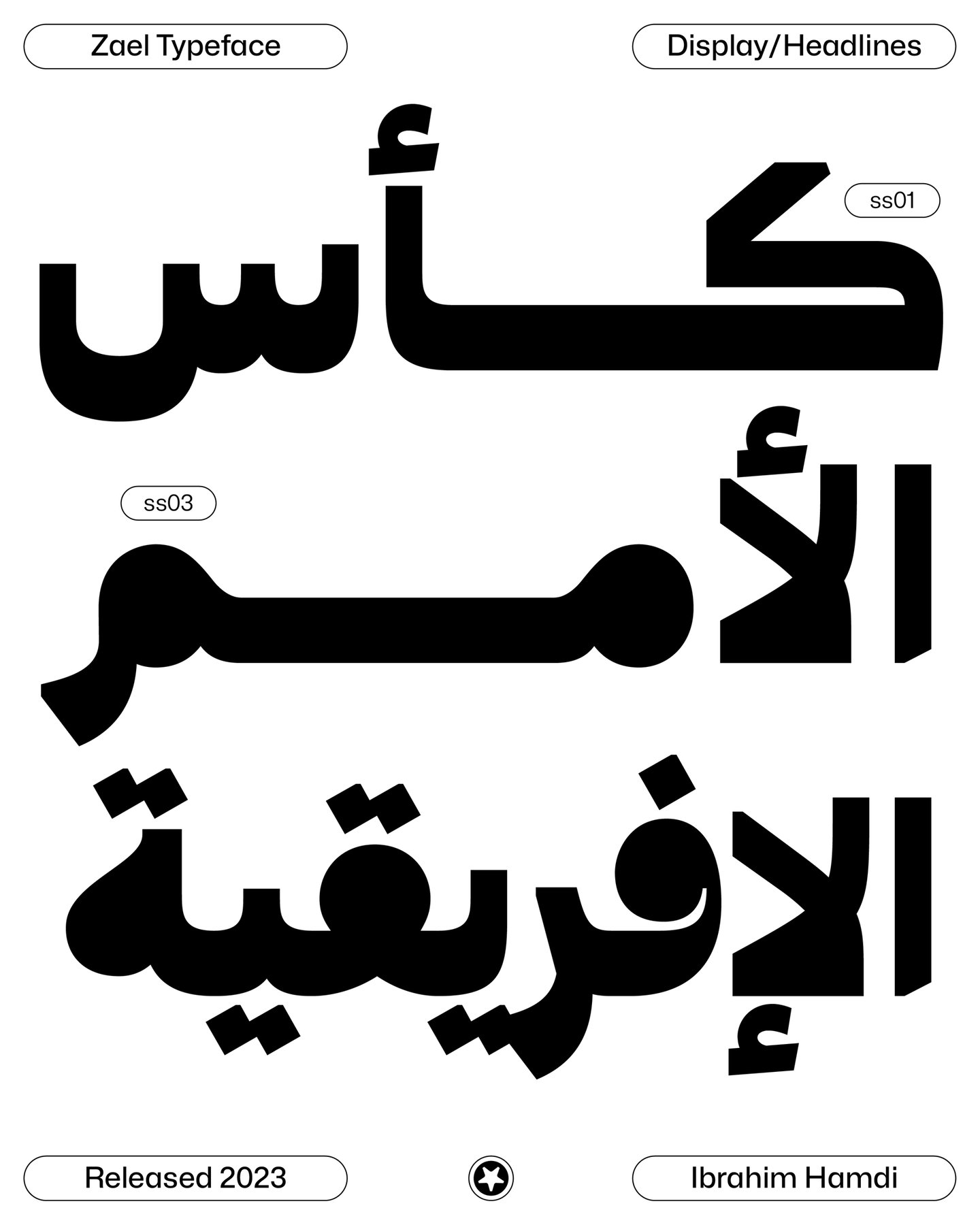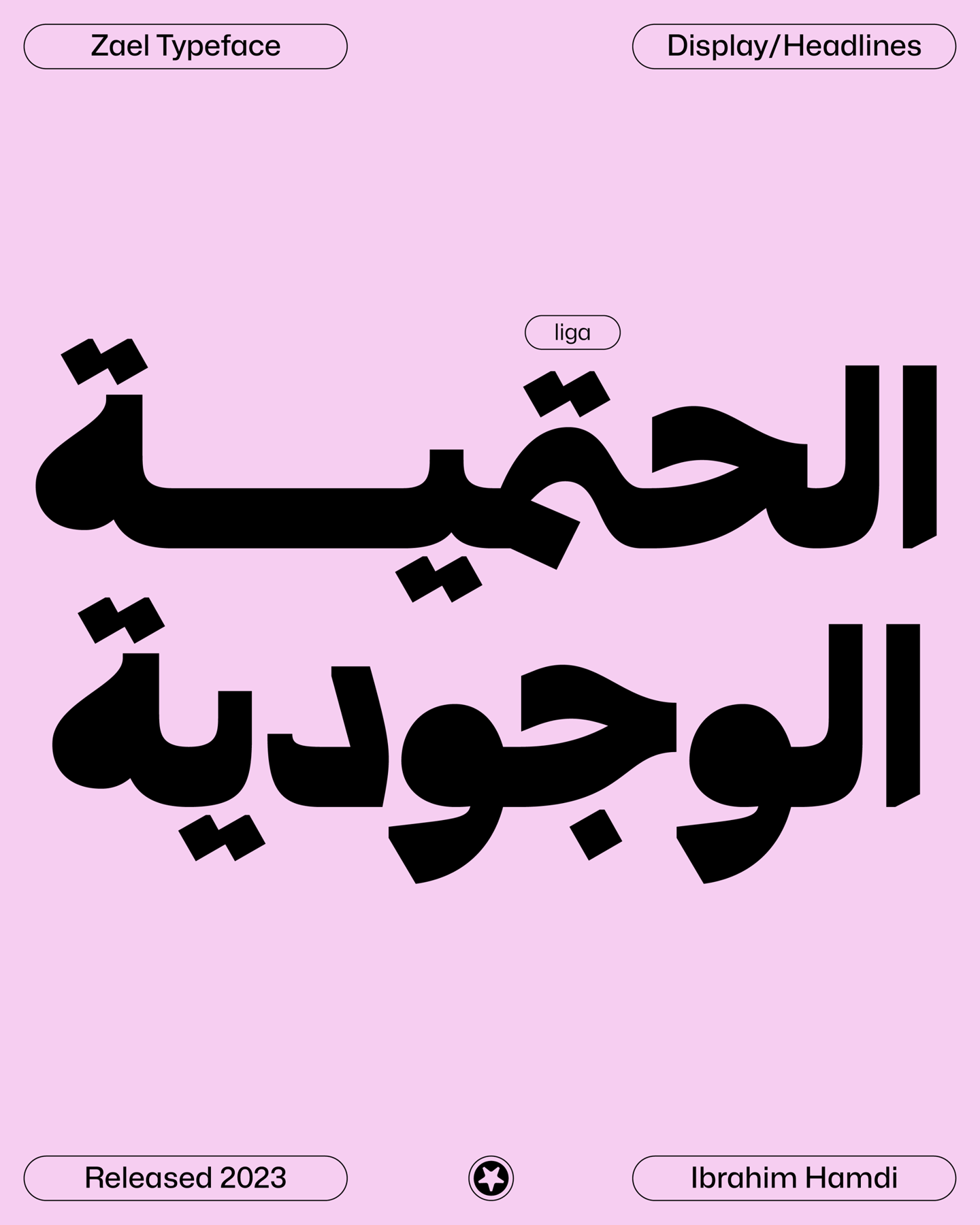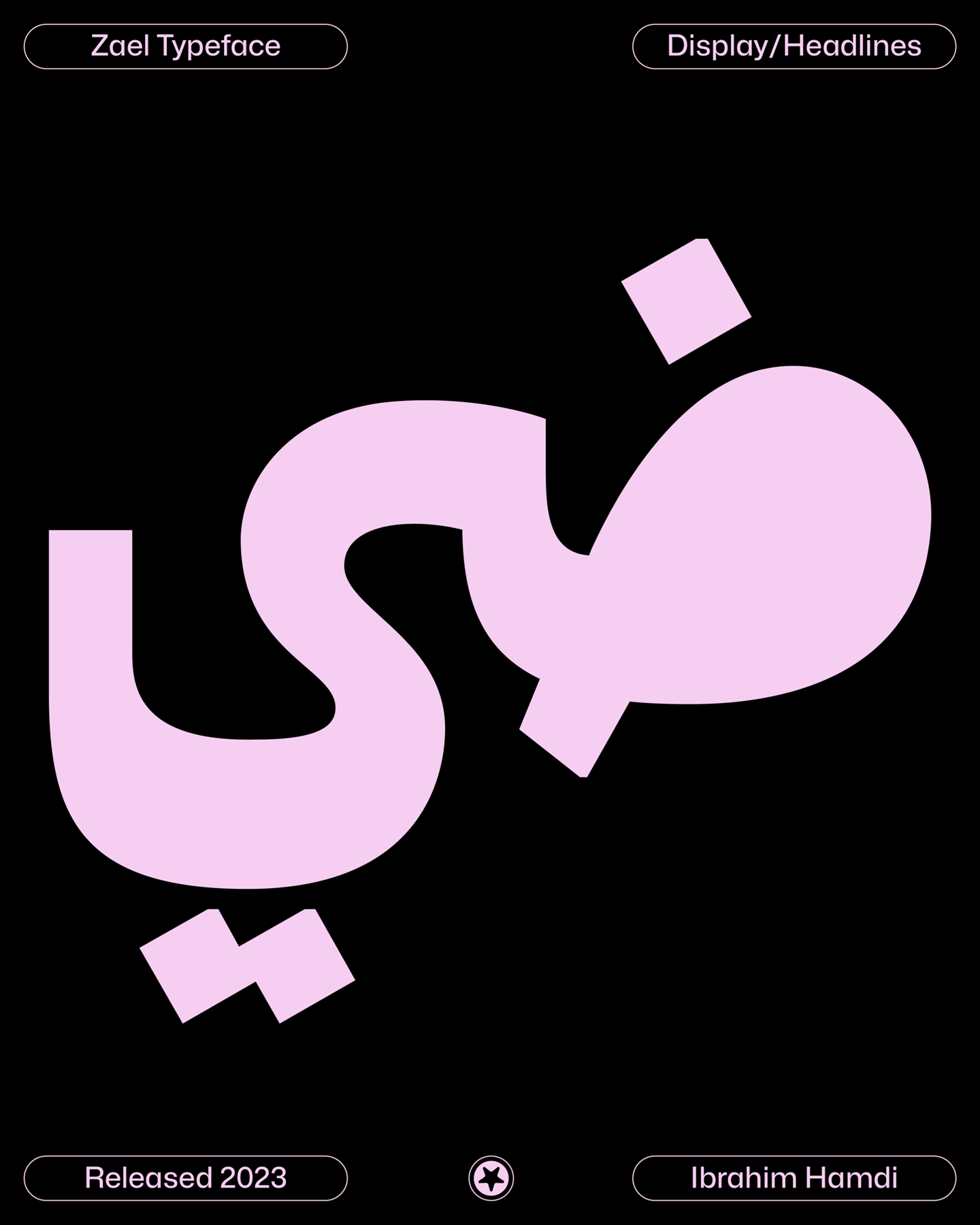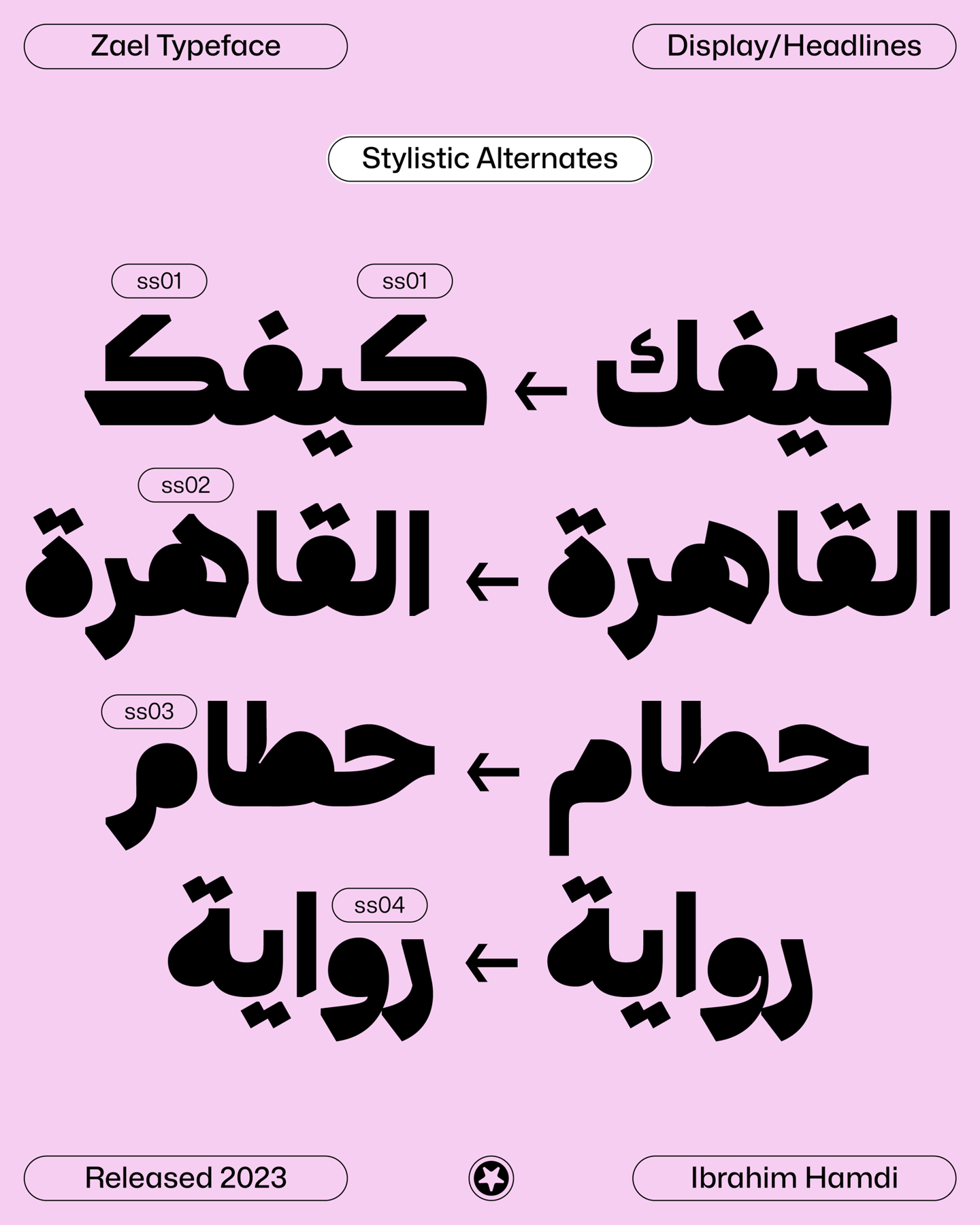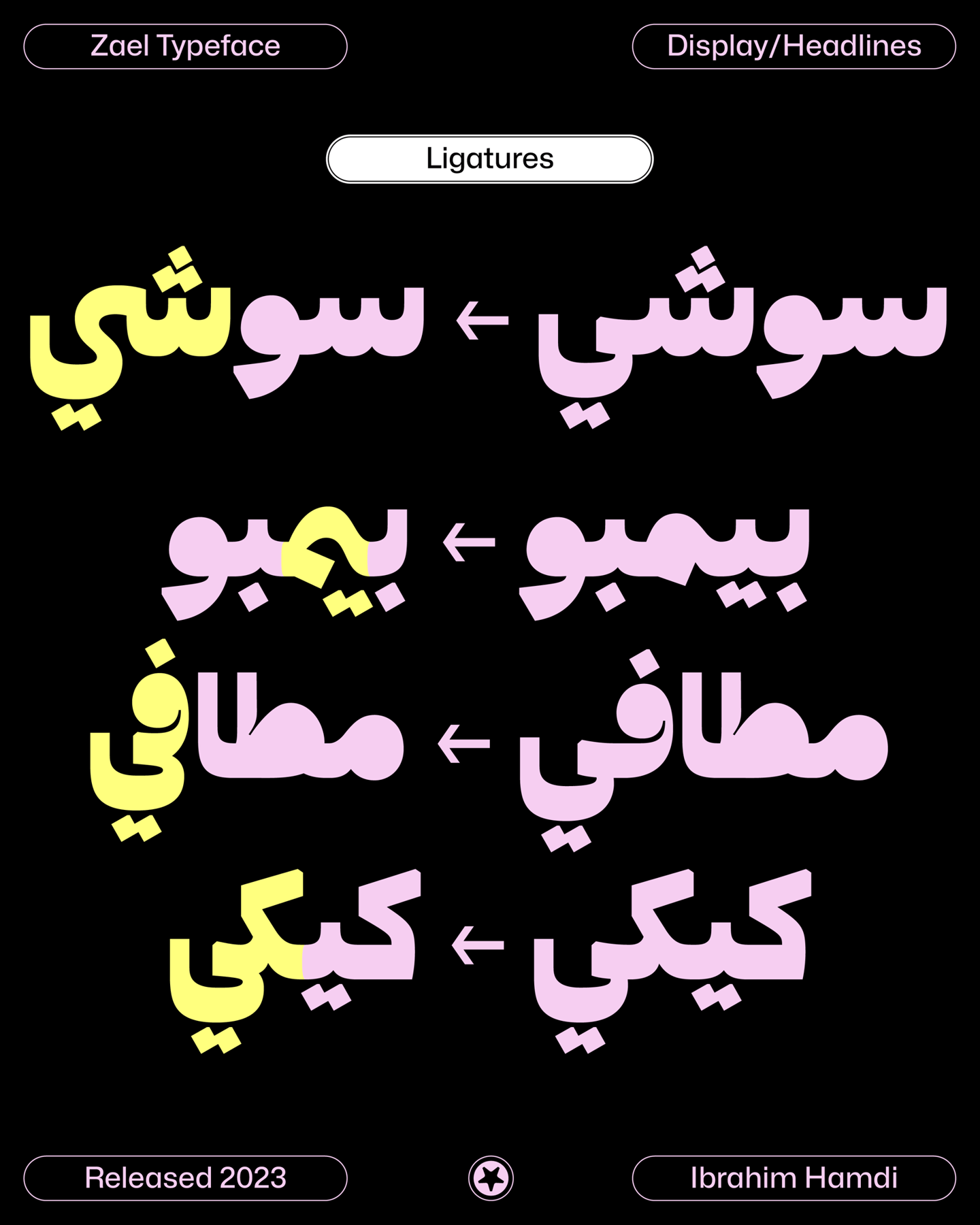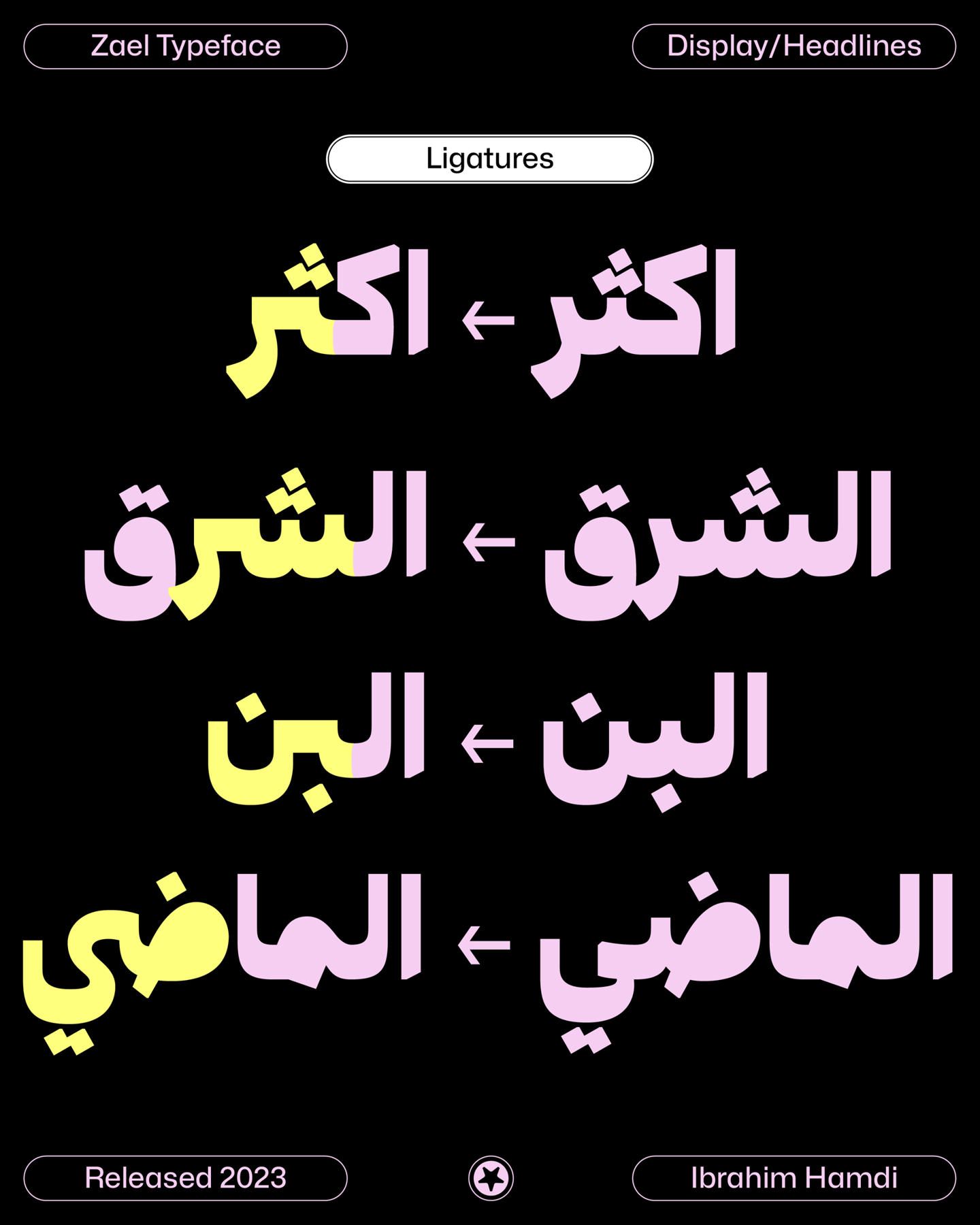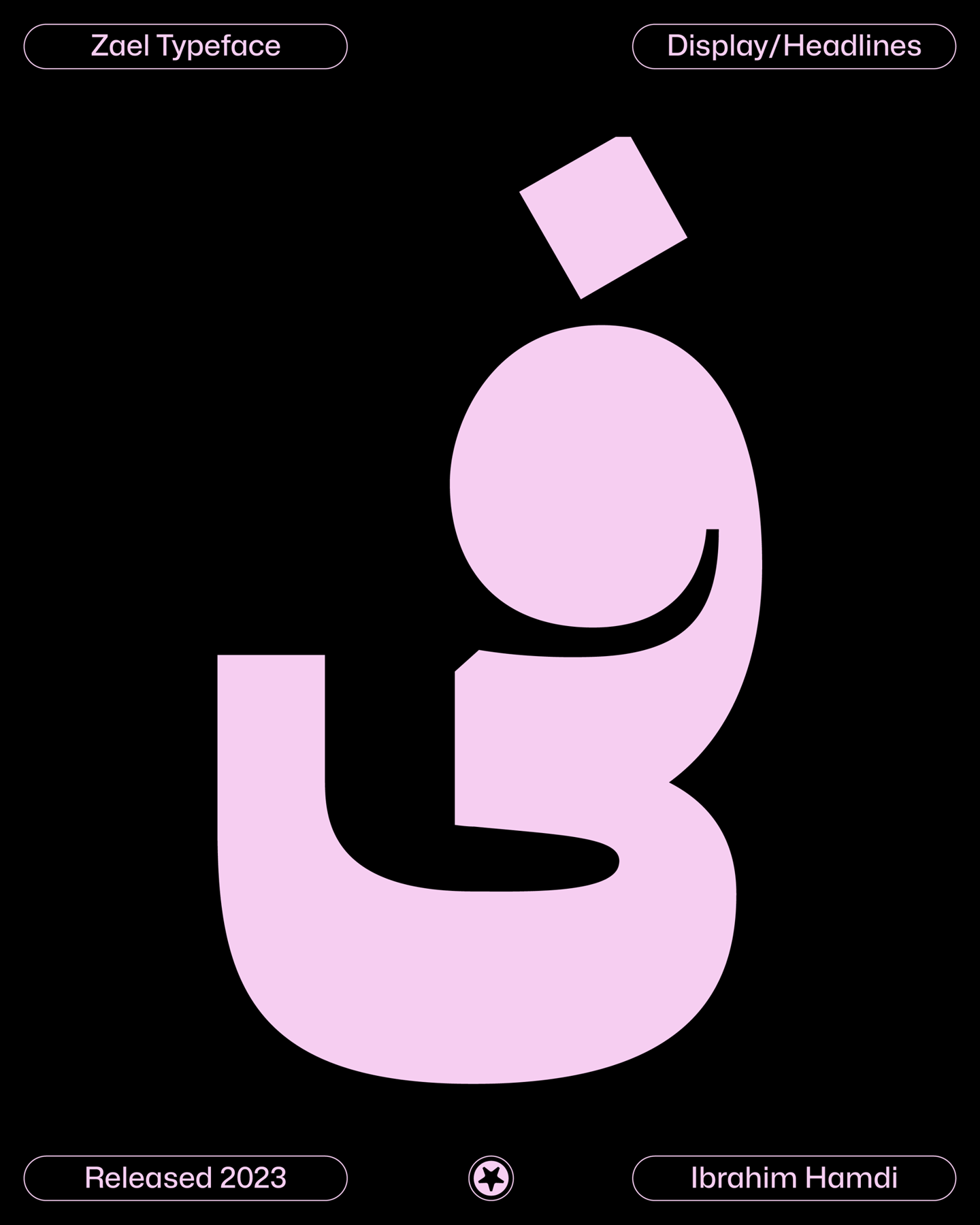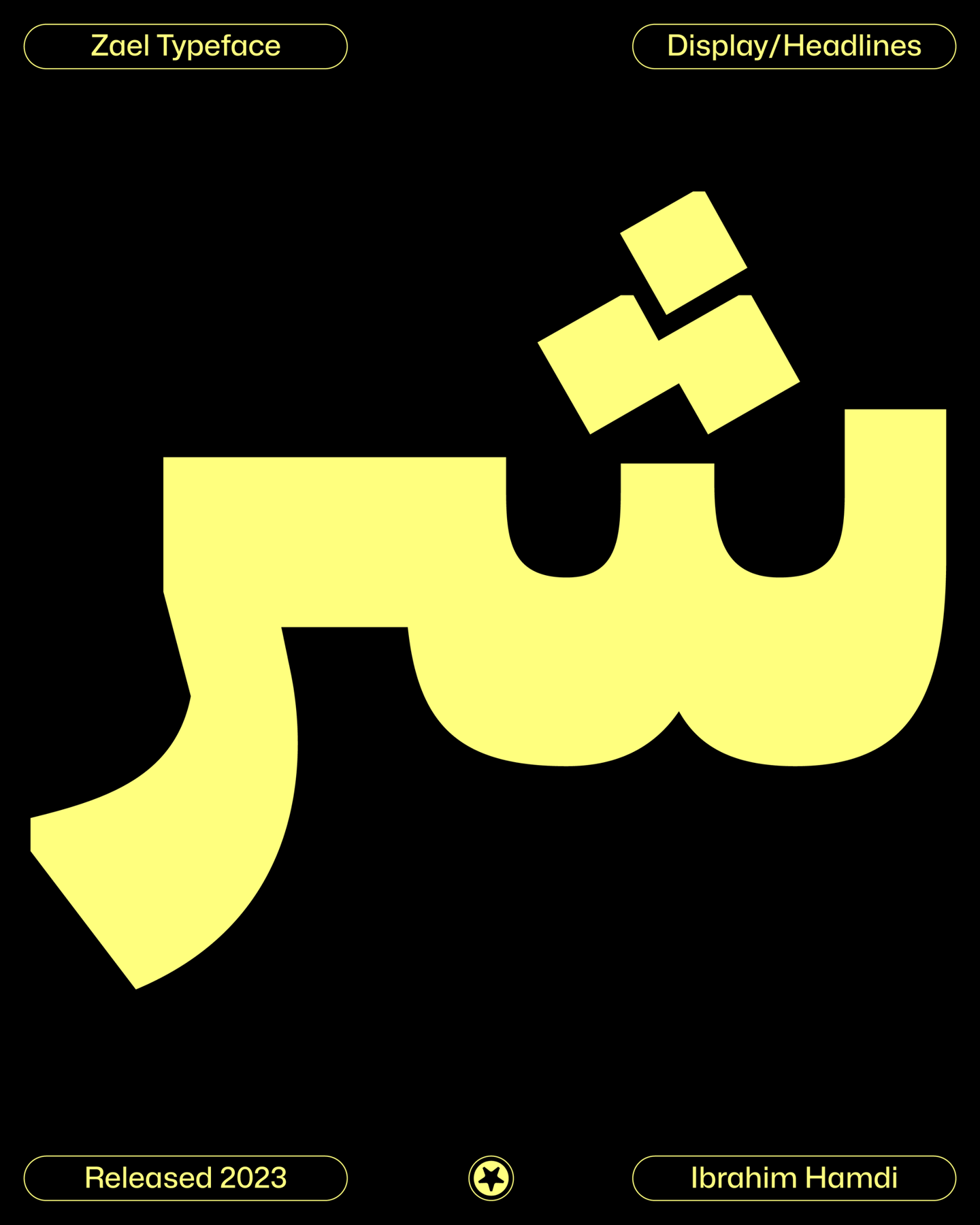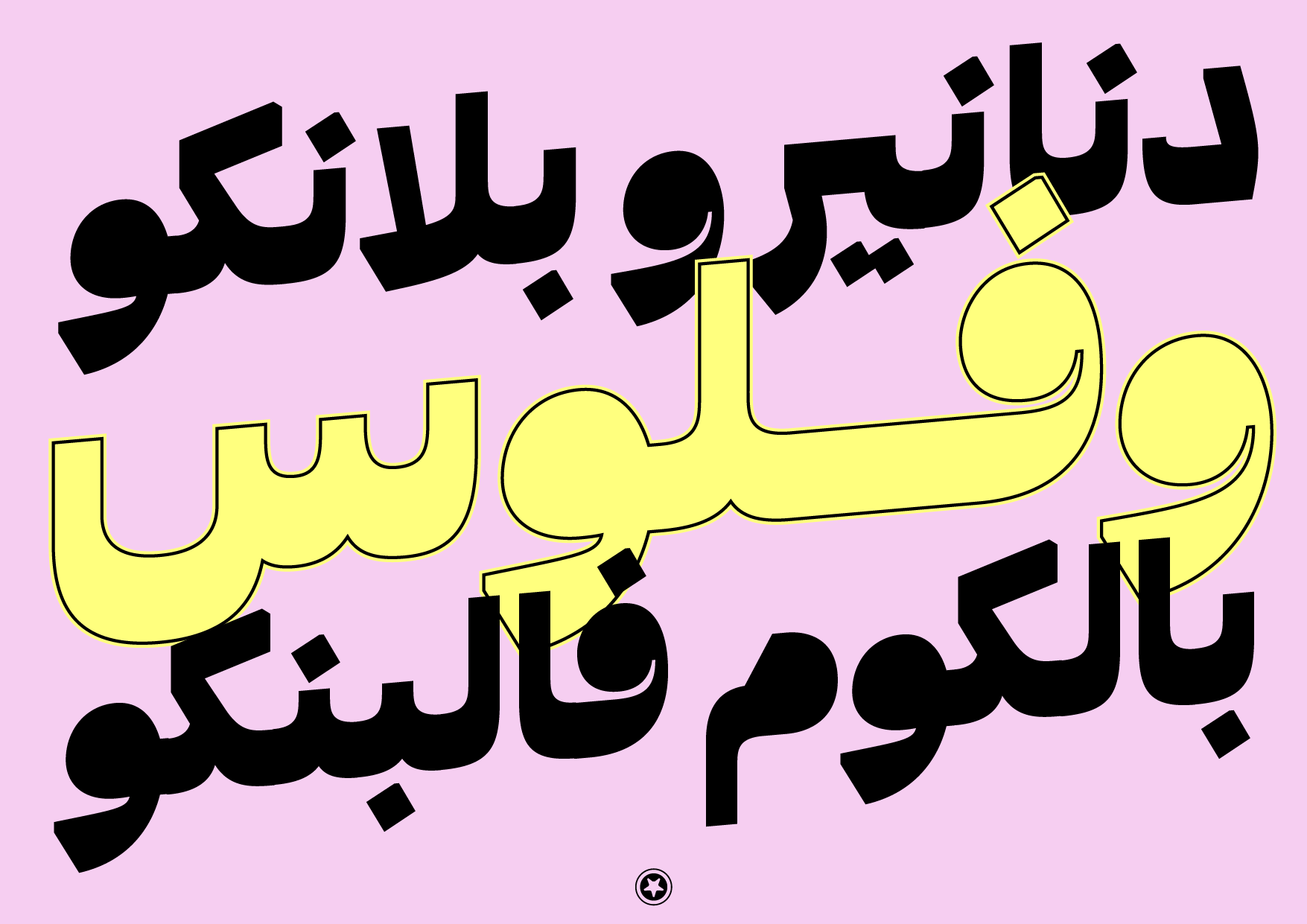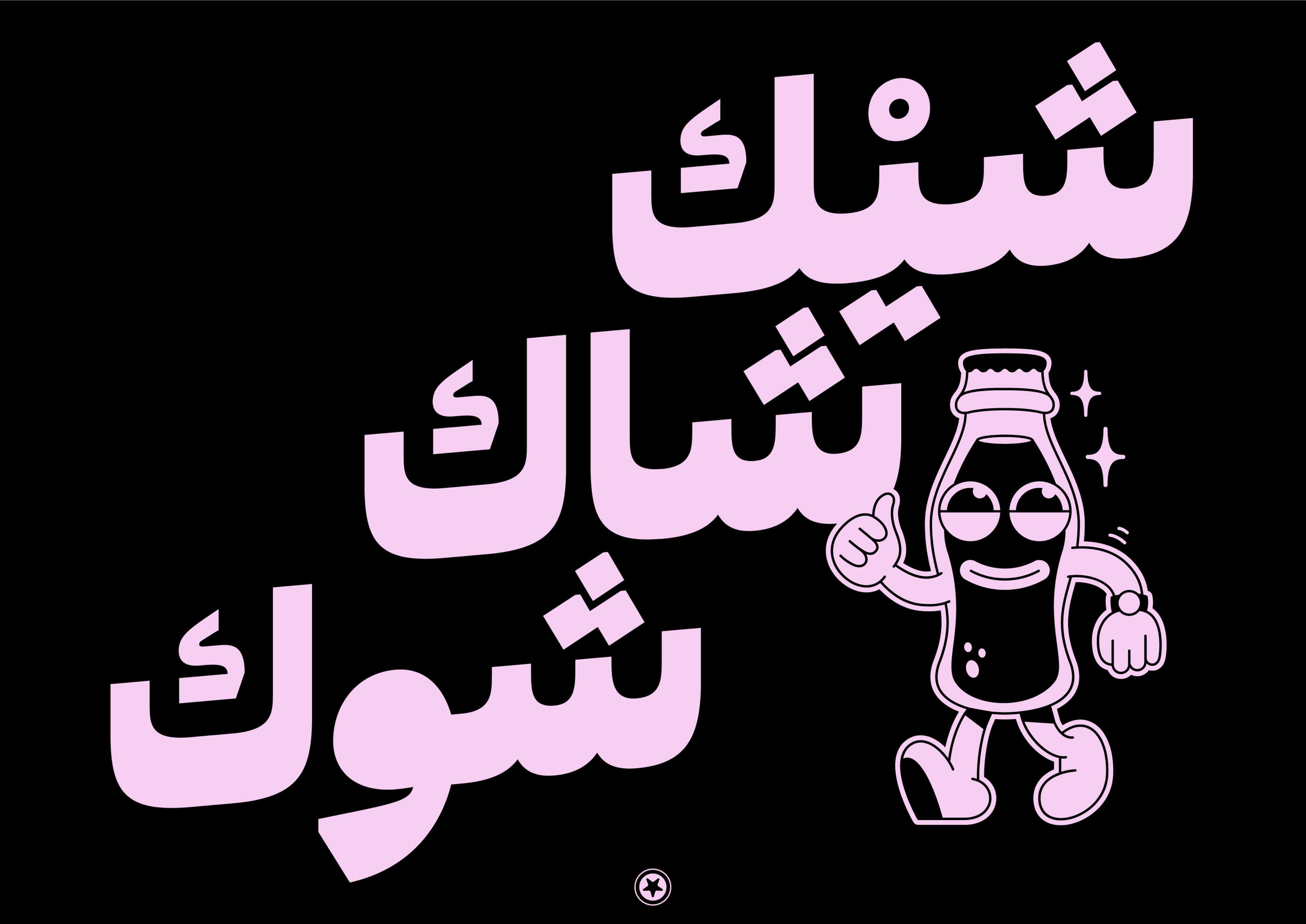
Introducing Zael, a new Arabic typeface. Zael is an eye-catching Arabic display typeface designed with a thick base inspired by the Naskh script, making it visually appealing for screens and headlines. This typeface takes inspiration from classic Naskh calligraphy but incorporates modern touches, making it well-suited for contemporary designs. It is an excellent choice for creating captivating posters and visuals that seamlessly align with modern brands.
Zael's letterforms are crafted based on pre-experimental lettering by Ibrahim Hamdi. It was design a complete typeface with harmonious and consistent posed a significant challenge. Zael's was designed in October 2023, Zael supporting OpenType features, and it support for additional languages such as Urdu, Persian, and Kurdish. Designed by Ibrahim Hamdi. Copyright © 2023 by Protype Foundry. All rights reserved.
Zael's awarded in Dubai Lynx (1 Silver and 2 Bronze) and shortlisted in multiple categories, Also awarded a Wood Pencil award in D&AD 2024, Recently Zael's won a bronze in Cannes Lions 2024.
Supported Languages
Arabic, Persian, Urdu and Kurdish
Opentype Features
Contextual Alternates, Stylistic Alternates, Standard Ligatures, Dictionary Ligatures, Required Ligatures, Swash.